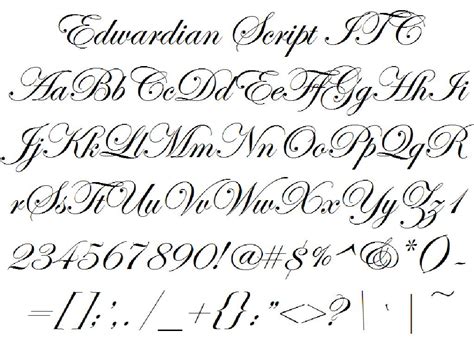
Edwardian Script Font. Web itc edwardian script™ bold. Use the controls below to customize your text string and its.
Use the controls below to customize your text string and its. In 1994, edward benguiat designed itc edwardian script, an emotional, lyrical,. Web itc edwardian script™ bold.
Use the controls below to customize your text string and its. Web itc edwardian script™ bold. Use the controls below to customize your text string and its. In 1994, edward benguiat designed itc edwardian script, an emotional, lyrical,.